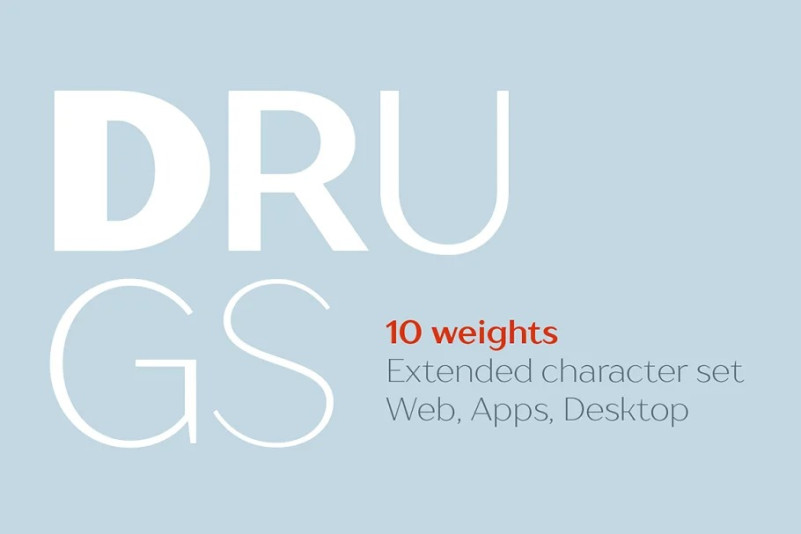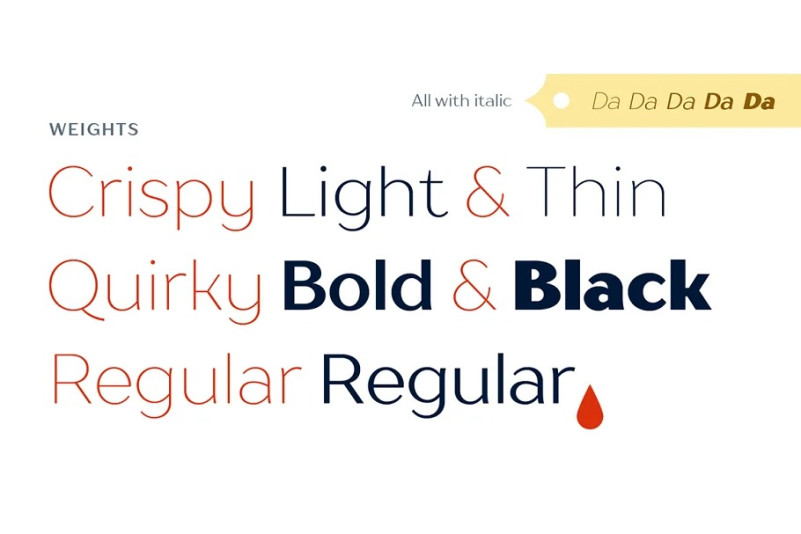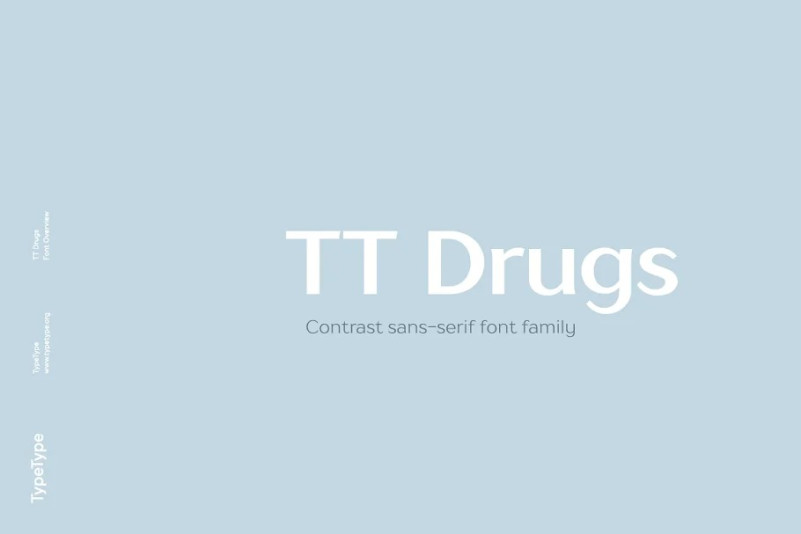
TT Drugs Font
TT Drugs Font – fonts that are specifically designed for the pharmaceutical industry and for household chemicals. Than to make a text layout for package of any medicine, toothpaste or laundry detergent? The answer is—Drugs. Font family has a range from thin to black font and can be used on any surface: paper, cardboard, metal, glass and others.
5 weights & 5 Italics
415+ glyphs for each typeface
Supports 158 languages (incl. Cyrillic)*
Scope: logotypes, titles, text blocks, pharmaceutical products, medicines, laundry detergent, household chemicals, vitamins, packaging, signage, events and exhibitions, catalogs and magazines, television advertising, small size printing.